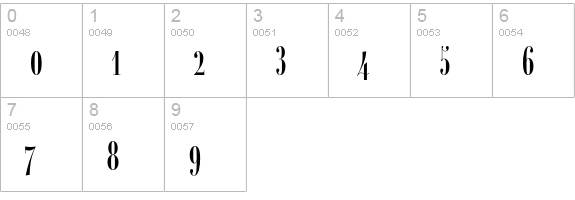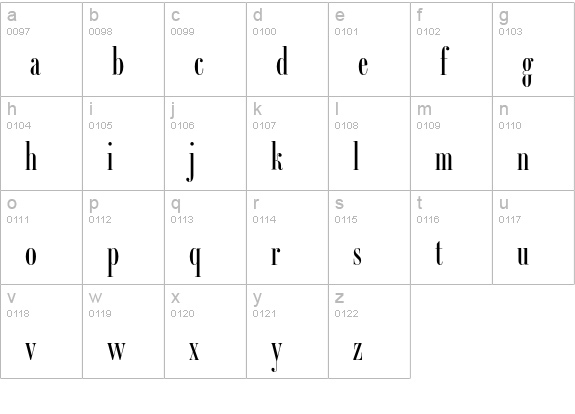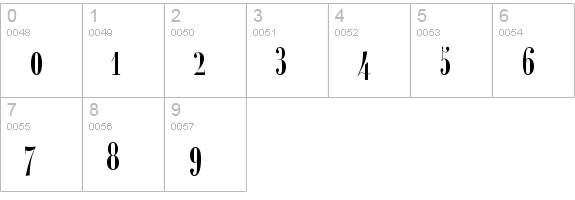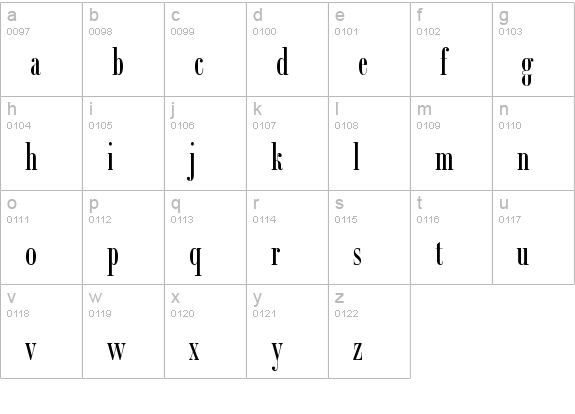
Ambroise Francois Regular is the standard, neutral variant in the Ambroise typeface family \xE2\x80\x94 well suited to general body text, paragraphs, and standard typographic work.
Ambroise Francois Regular is a classic serif font that exudes elegance and sophistication. Its timeless design makes it a versatile choice for various design projects, from invitations to branding materials. The clean lines and graceful curves of this typeface give it a polished and professional look, perfect for conveying a sense of refinement. What sets Ambroise Francois Regular apart is not just its aesthetic appeal, but also its accessibility. This font is available for free download at FontsMarket.com, making it a valuable resource for designers and creatives looking to elevate their work without breaking the bank. Whether you're working on a personal project or a client's campaign, Ambroise Francois Regular is a reliable choice that won't disappoint. With its combination of classic charm and modern versatility, Ambroise Francois Regular is sure to become a staple in your font library. Download it for free today and add a touch of sophistication to your next design endeavor.